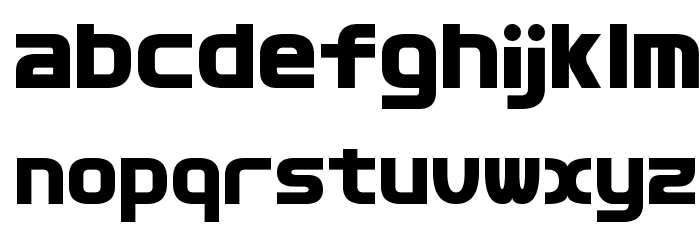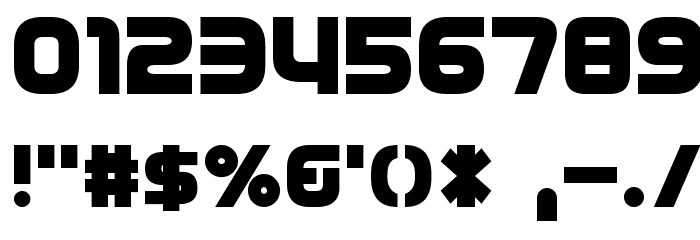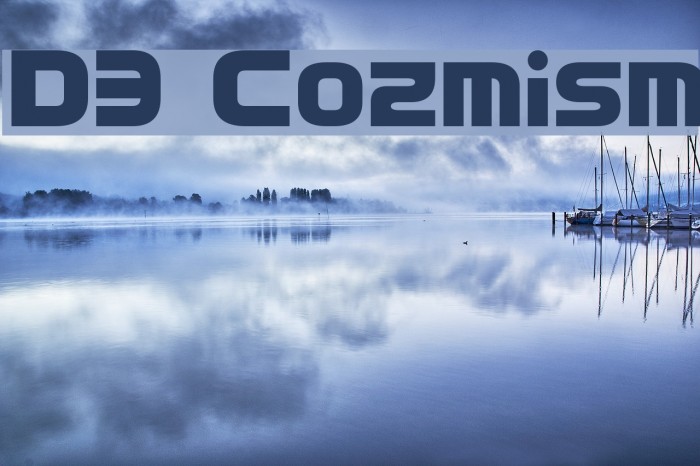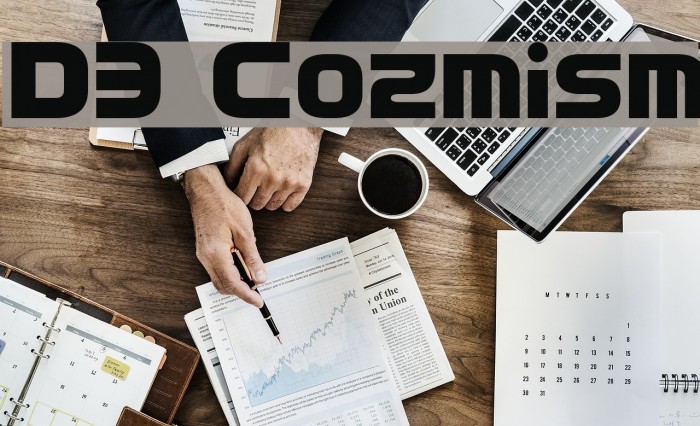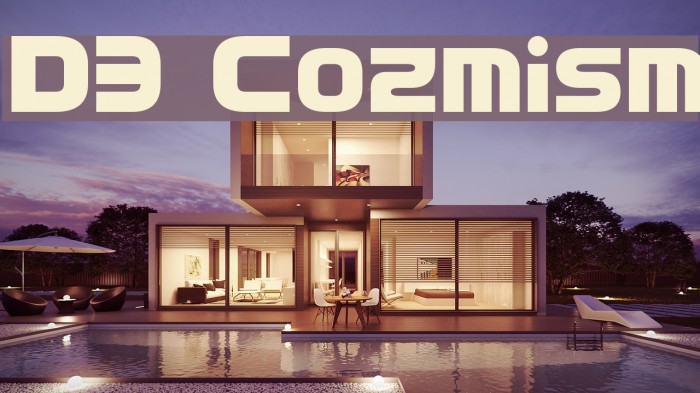
D3 Cozmism Font
This font features a bold, futuristic design with geometric shapes and strong lines. The uppercase letters are uniform in height, creating a cohesive look, while the lowercase letters maintain a similar width, adding to its modern appeal. The numbers are distinct and easily readable, with a consistent style that matches the alphabet. Special characters are designed with the same boldness, ensuring they stand out. The overall style is clean and impactful, making it suitable for attention-grabbing designs.
A bold, futuristic font with geometric shapes and strong lines.
- Proposed Projects: Ideal for sci-fi themed projects, technology branding, video game titles, and modern posters.